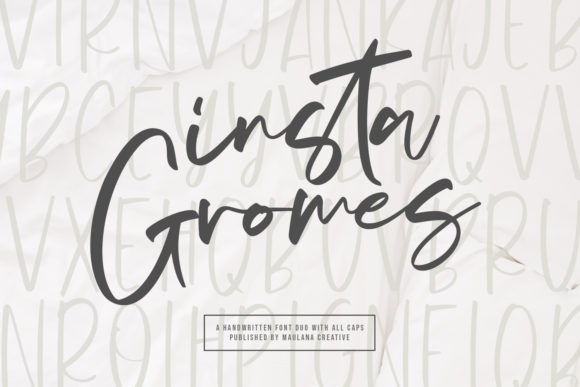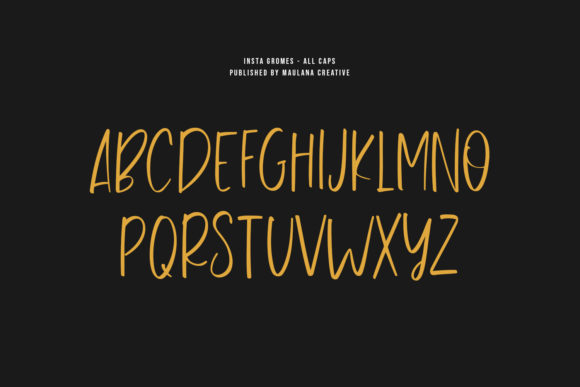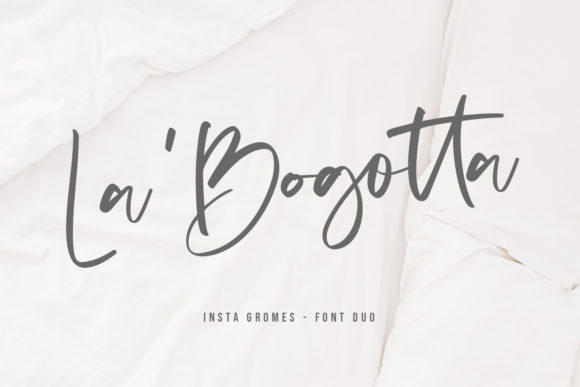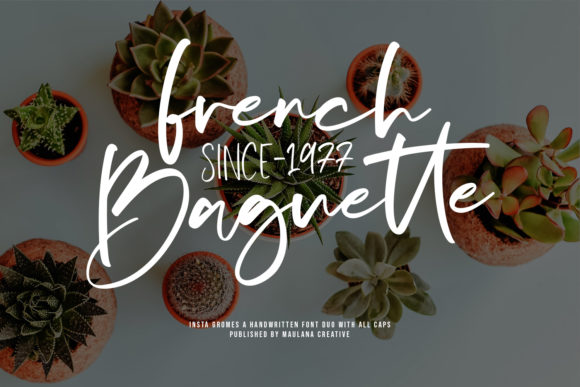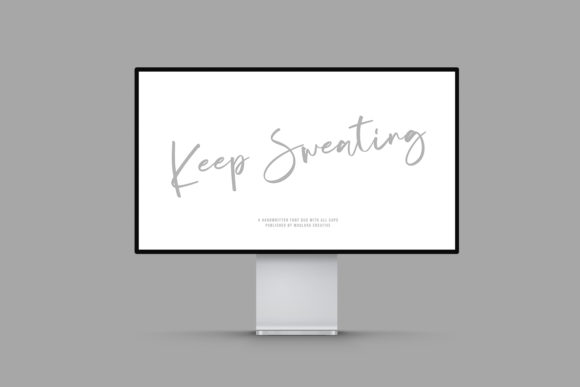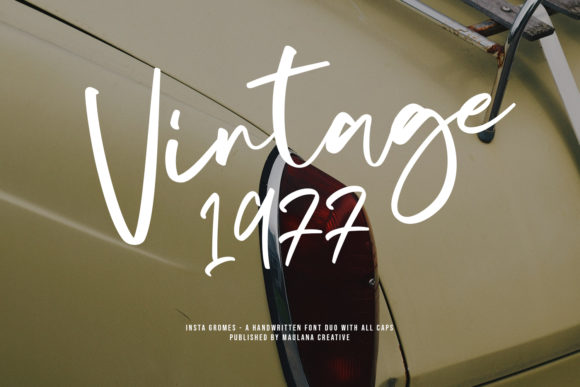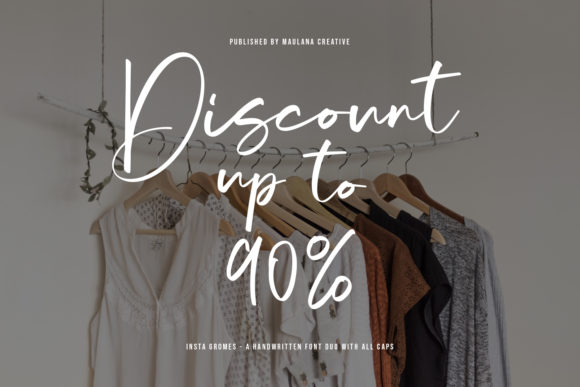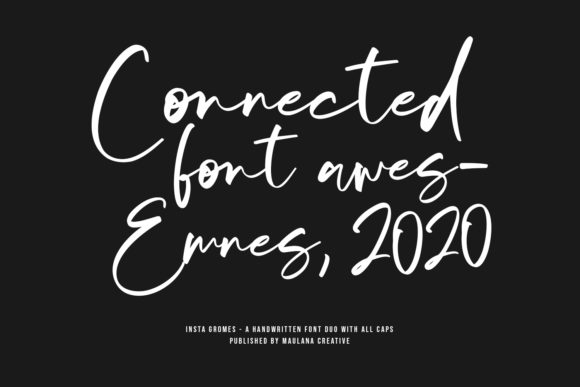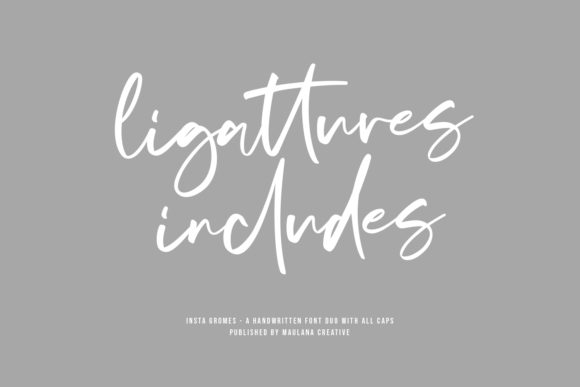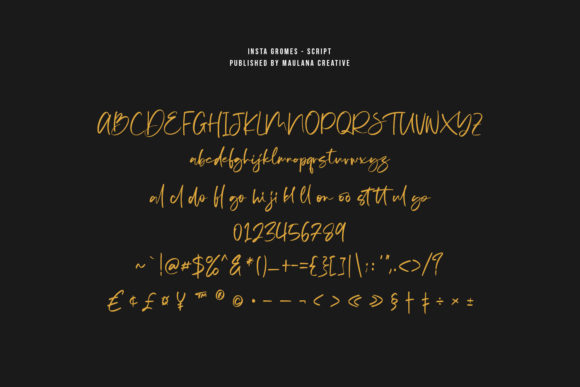
Insta Gromes Font
About Insta Gromes Font
Insta Gromes results out of a stunning pairing of a brush pen and pencil that makes it look incredibly endearing and authentic. Use this gorgeous and unique handwritten font to bring any DIY project to life!